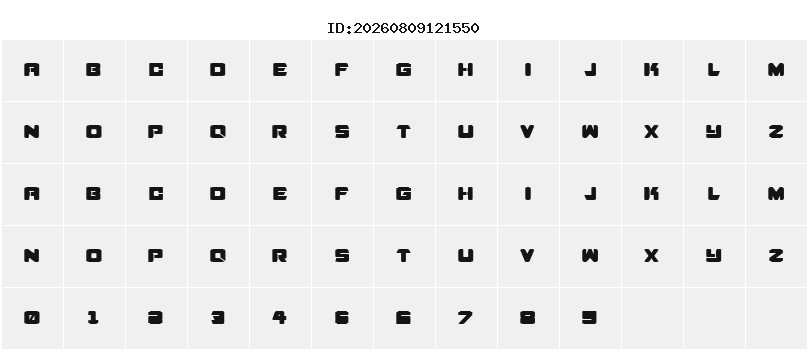
pedrosky Preview
• Font Name: pedrosky
• Font ID: Pedrosky Regular: 2012
• Full Font Name: Pedrosky Regular
• PostScript Name: Pedrosky
• Character Count: 85
• Designer: Pedro Gutiérrez
About pedrosky.ttf
pedrosky.ttf is a modern, elegant sans-serif font designed for ultimate readability and visual harmony. Perfect for branding, headlines, web design, and print materials.